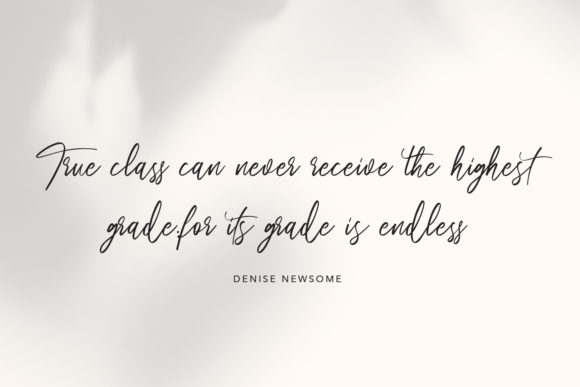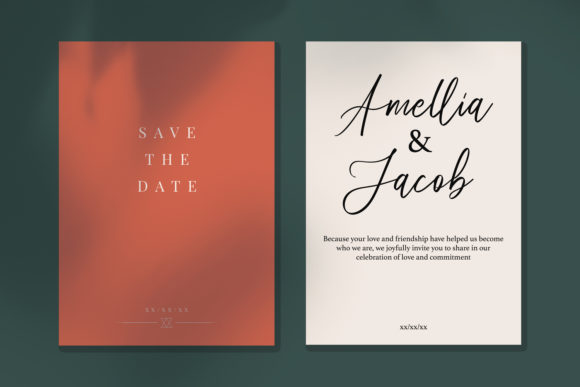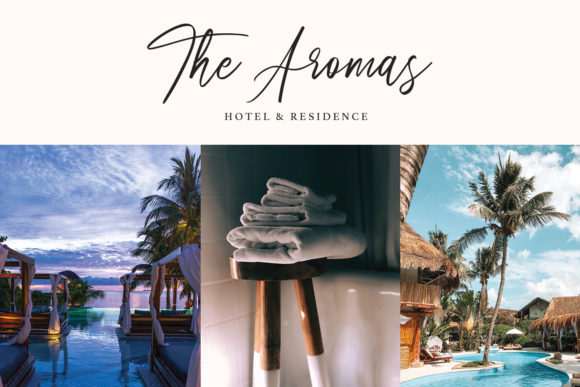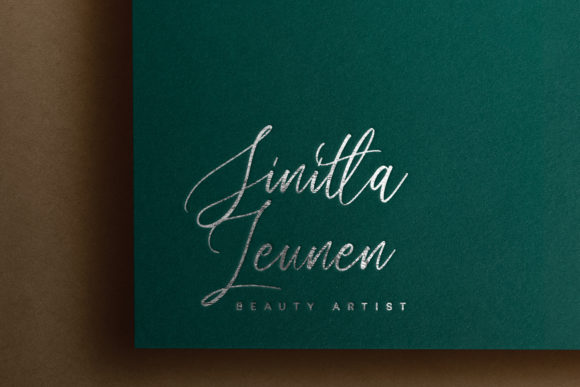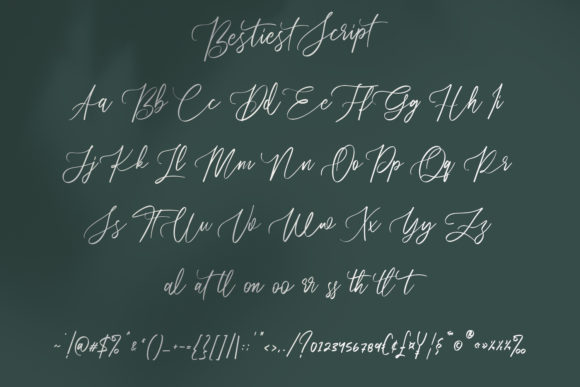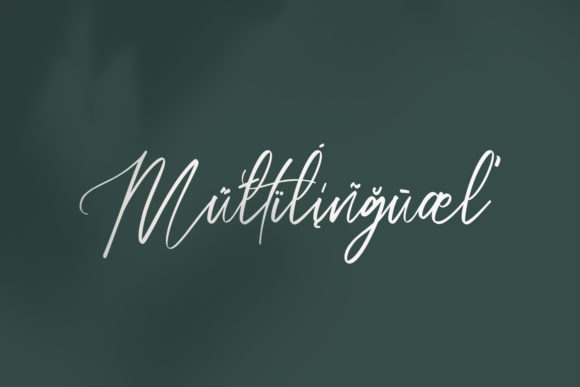
The Bestiest Script Font: A Designer’s Dream Come True
I’ll never forget the time I was working on a wedding invitation project, and my client asked for a font that was ” elegant, yet playful, and totally unique.” I scoured the internet, tried out countless fonts, but nothing seemed quite right. That was until I stumbled upon Bestiest Script. ✨ It was love at first sight! In this article, I’ll share my experience with this beautiful font, its features, and how to make the most of it in your designs.
An Honest Review of Bestiest Script
- ✨ Incredibly distinct and delicate handwritten style
- ✅ Timeless and versatile, suitable for various design projects
- 💕 Perfect for adding a touch of elegance and whimsy to your designs
- 🎉 Excellent for wedding invitations, thank you cards, quotes, and greeting cards
While Bestiest Script is an amazing font, there are a few things to keep in mind: ⚠️ It may not be the best choice for very small text sizes, as some details might get lost. 🤔 Additionally, some users might find the font a bit too ornate for certain projects.
The Story Behind Bestiest Script
Bestiest Script was designed with love and care by a talented type designer who aimed to create a unique, elegant, and timeless font. Inspired by classic handwritten scripts, this font combines delicate lines, beautiful swashes, and a touch of whimsy to create a truly special design element.
Q: What type of projects is Bestiest Script best suited for?
A: Bestiest Script is perfect for wedding invitations, thank you cards, quotes, greeting cards, logos, business cards, and any other design project that needs a handwritten touch.
Q: Is Bestiest Script a difficult font to read?
A: Bestiest Script is a elegant and refined font, but it may not be the best choice for very small text sizes or body text. It’s best used for headlines, titles, or short paragraphs.